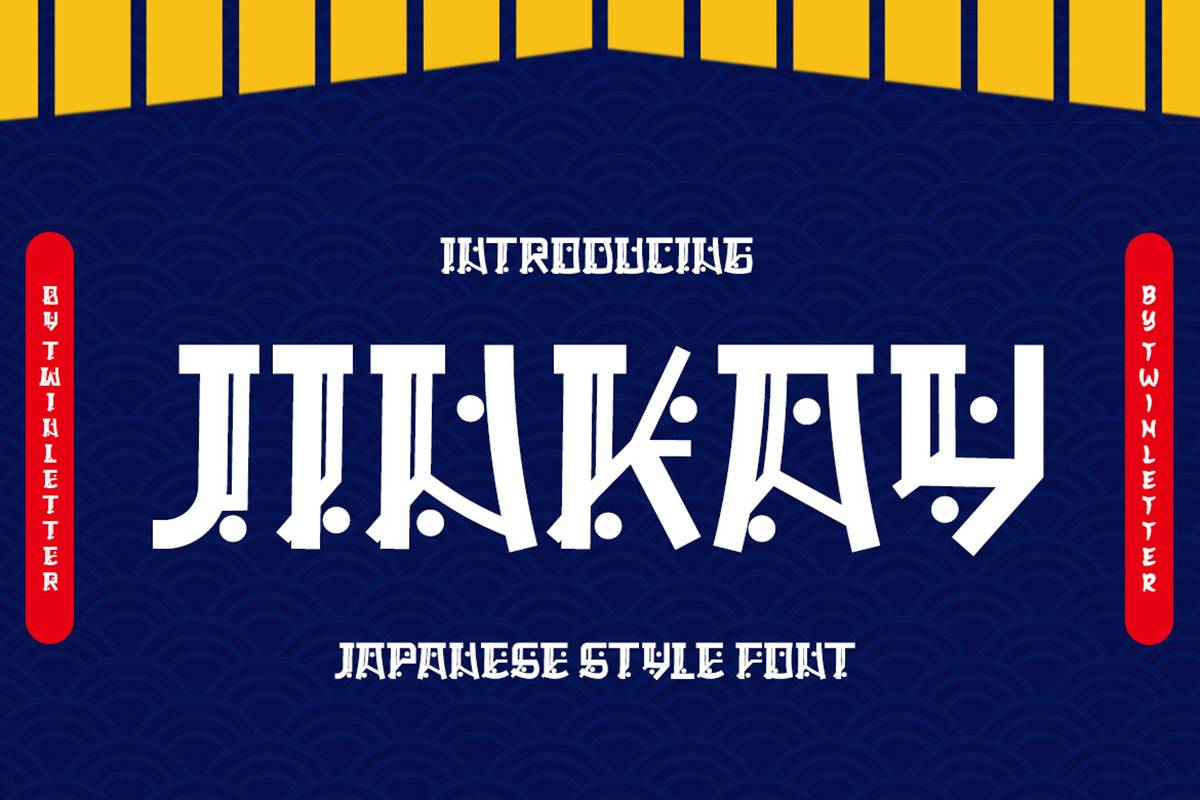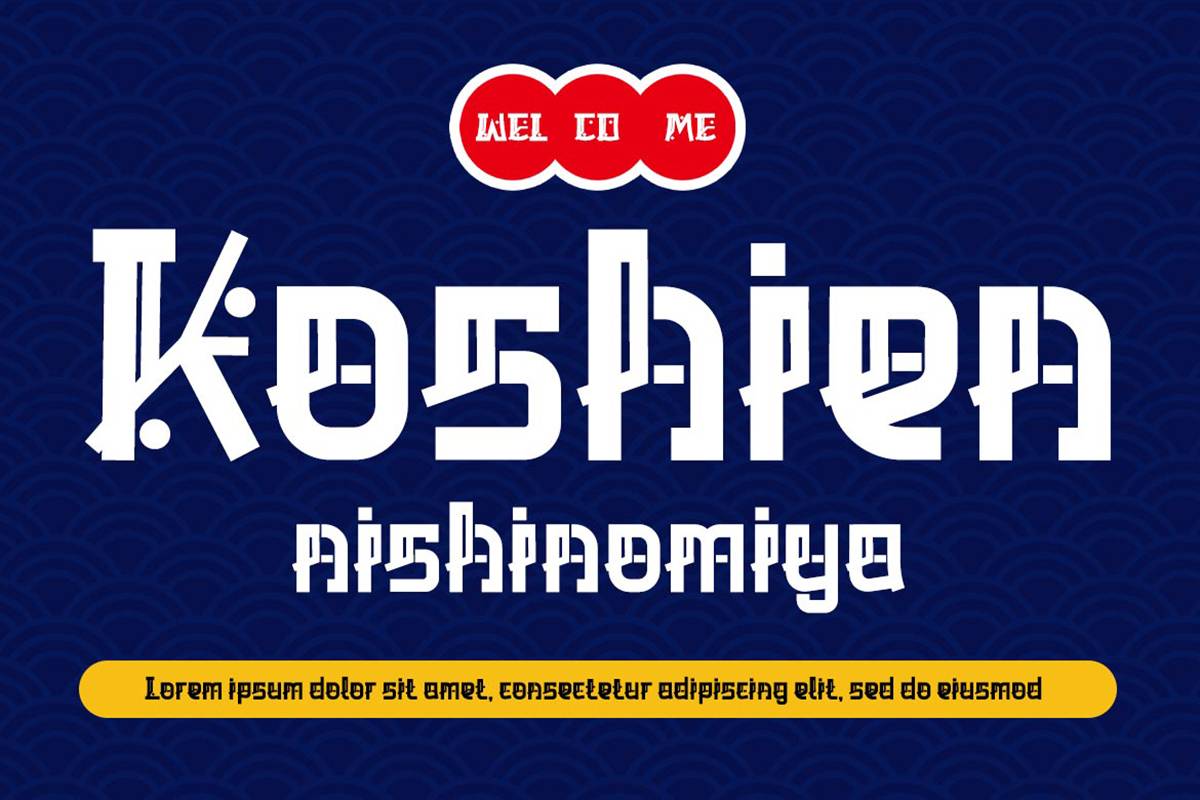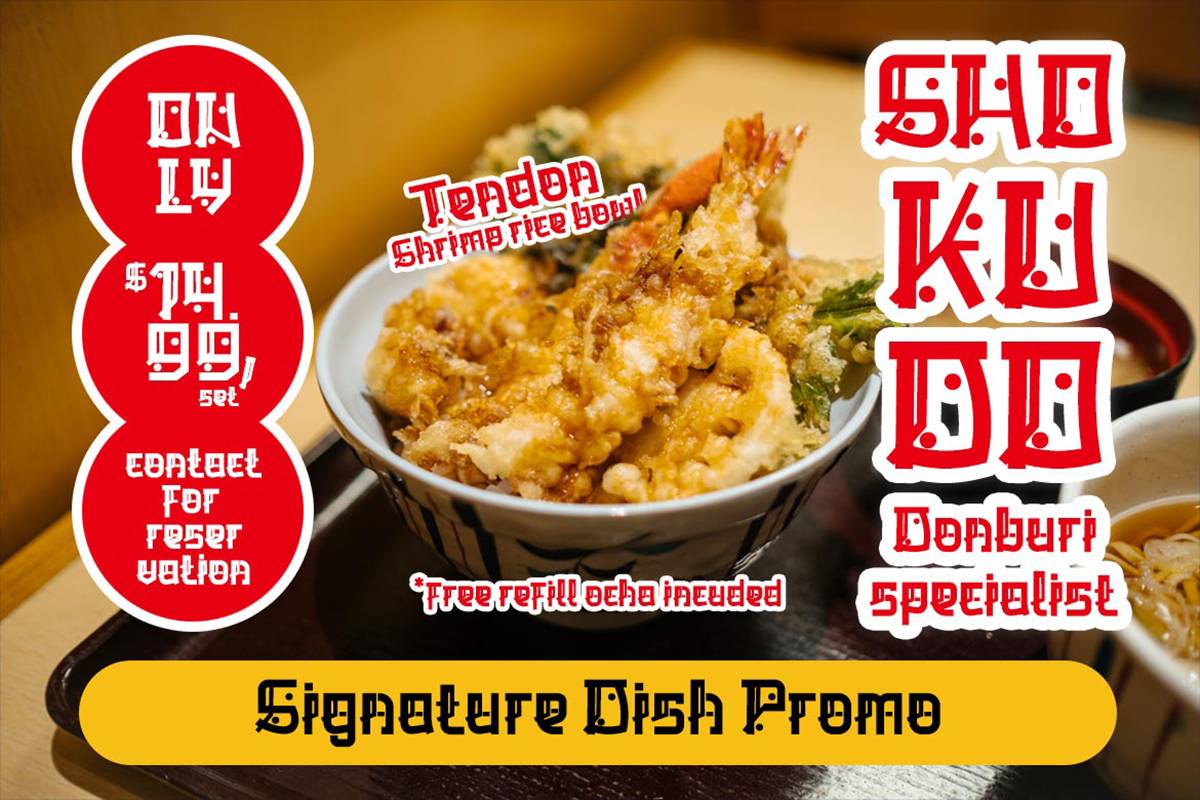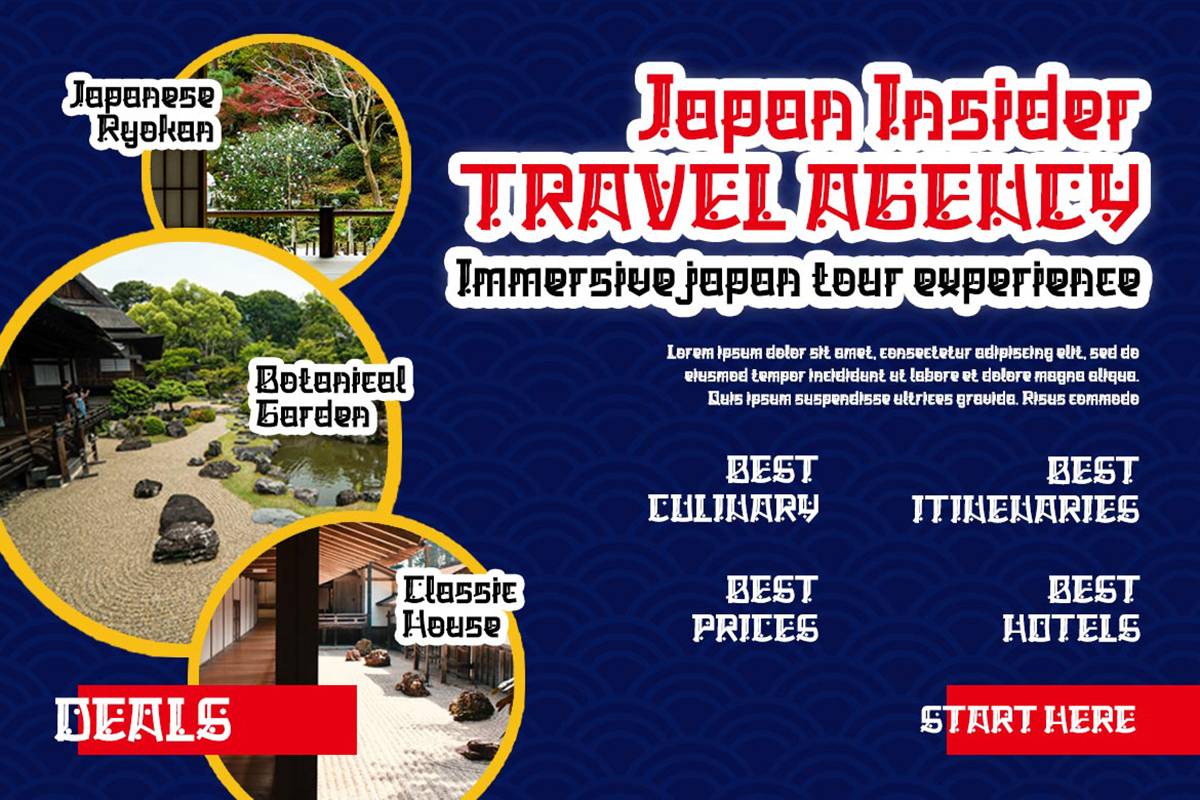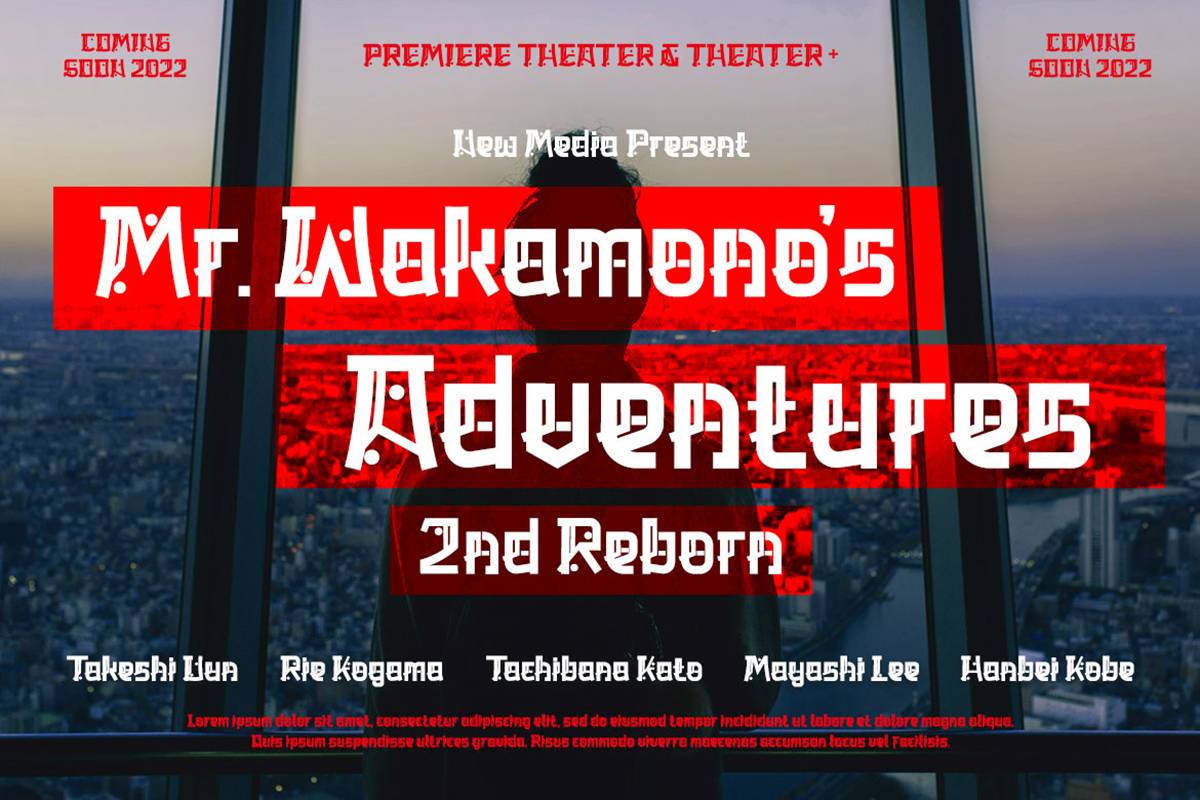
Jinkay is a bold, condensed slab serif font with a distinctive, ornamental style that combines geometric and angular letterforms with decorative dots and sharp edges. Its unique character shapes give it a strong, avant-garde personality, making it ideal for eye-catching headlines, branding, and creative designs that want to stand out with an artistic and slightly industrial vibe. This font works best where a modern, experimental feel is desired rather than for long body text.
About Jinkay Font